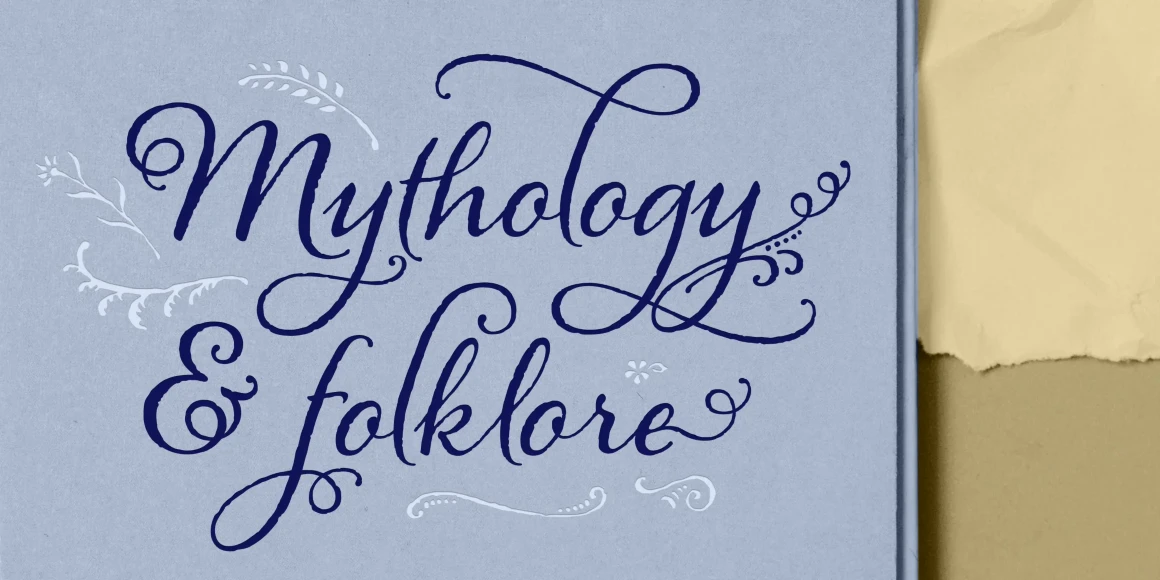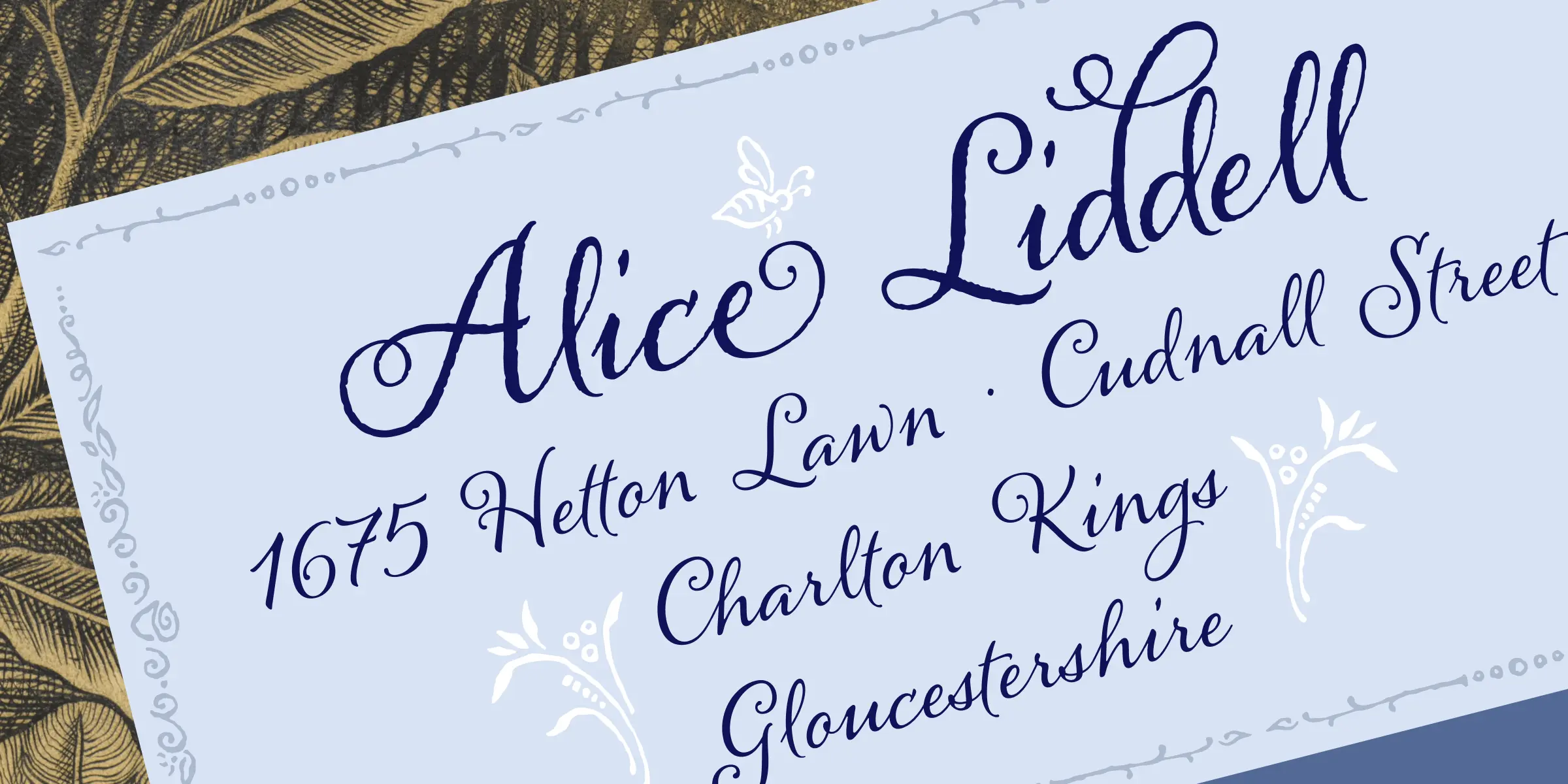
Alana Regular
Alana Bold
Alana
Alana is a connected script that glows with casual elegance. Its inviting letterforms work well in settings such as letter-writing and menu details; even at small sizes. Set at display sizes, Alana’s strokes reveal rough edges evocative of ink on textured paper. Alana includes over 300 alternates, including swash capitals and ornamented forms to customize titles, headlines, packaging, and wordmarks. Alana includes 62 matching ornaments: botanical fleurons, birds, and cute lil’ bugs.
OpenType Features
• Common Ligatures
• Fractions
• Ornaments
• Stylistic Alternates
• Stylistic Sets
• Superscript
• Titling Capitals